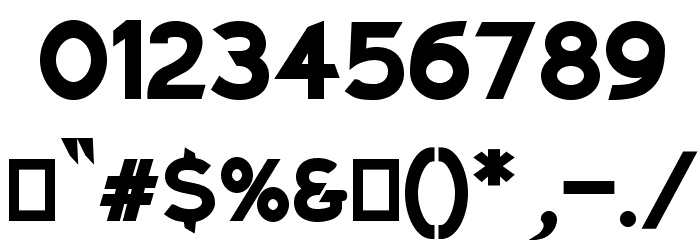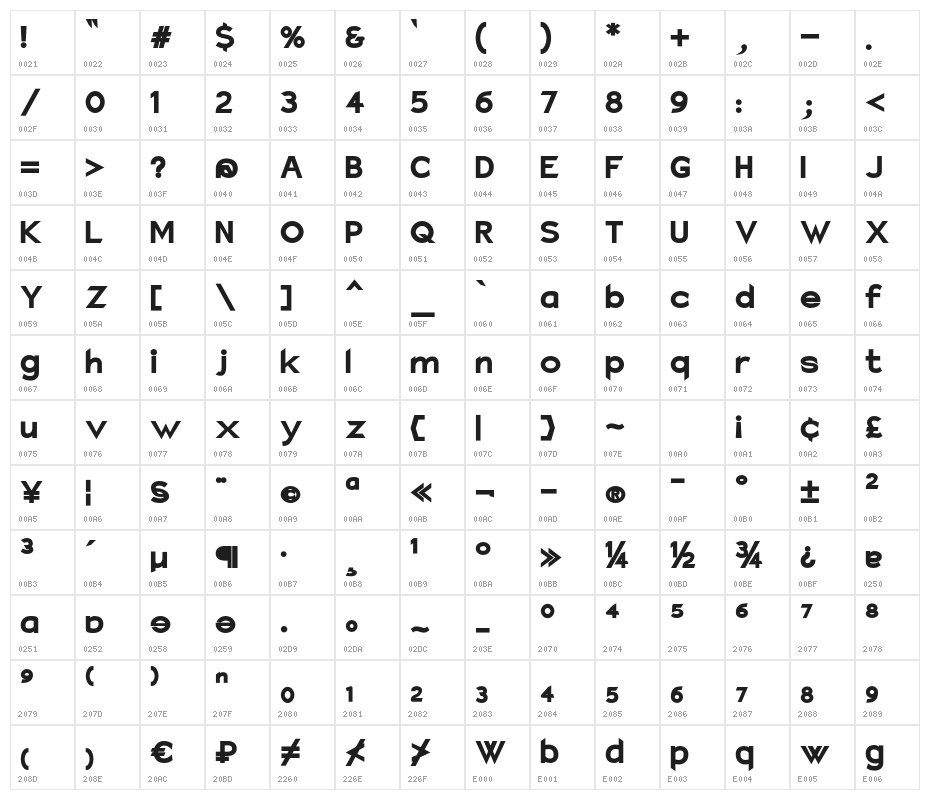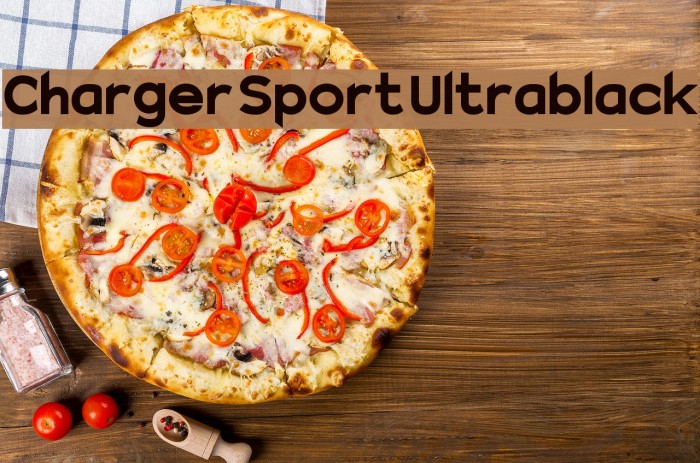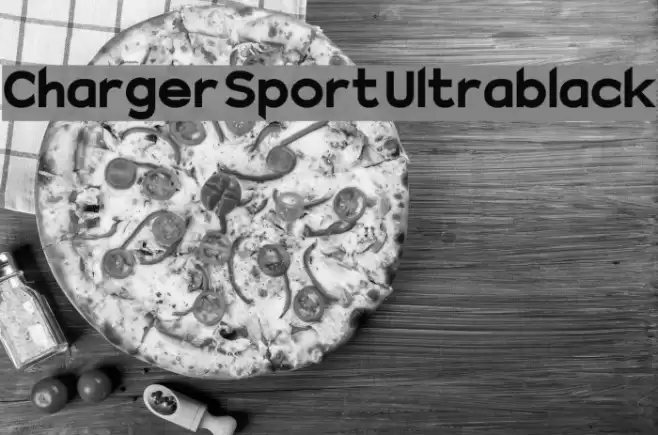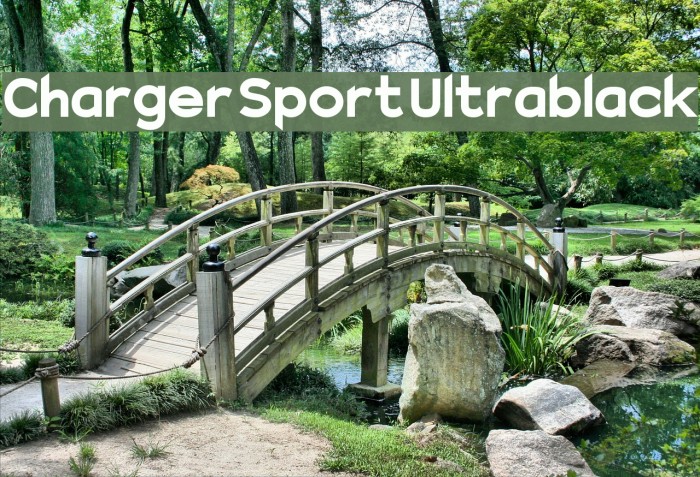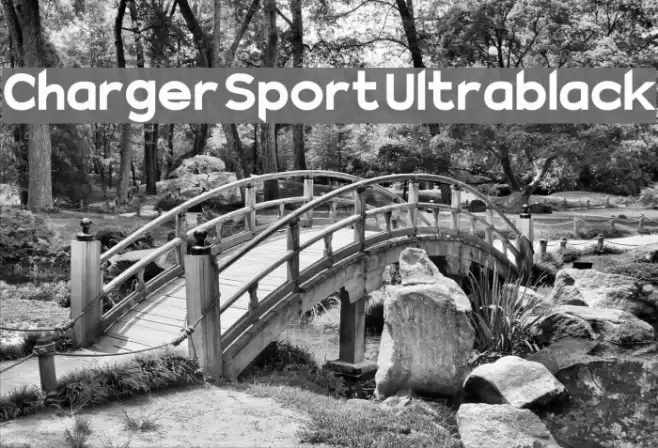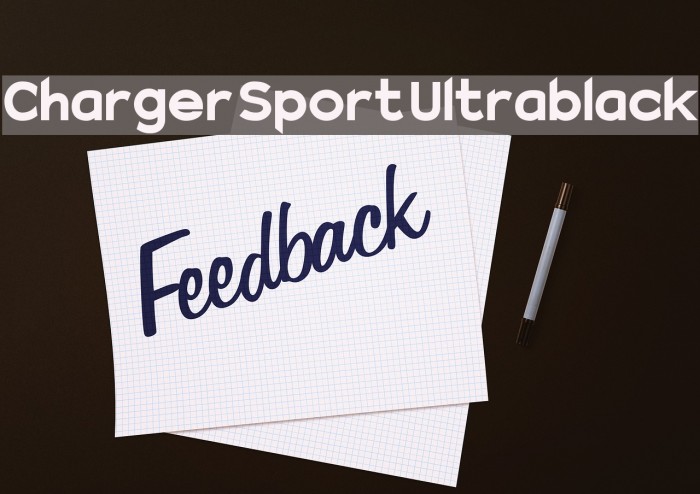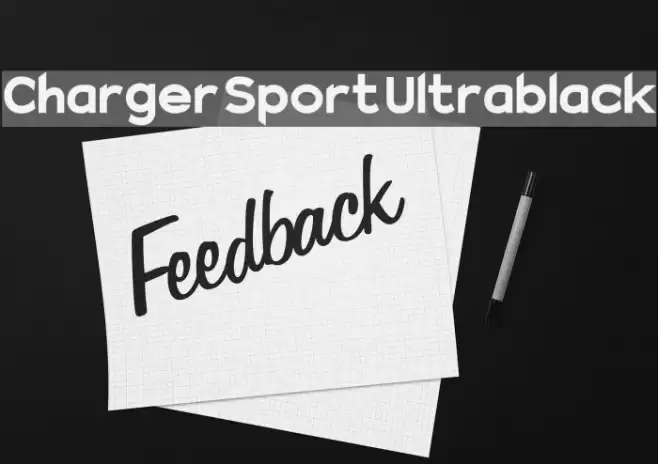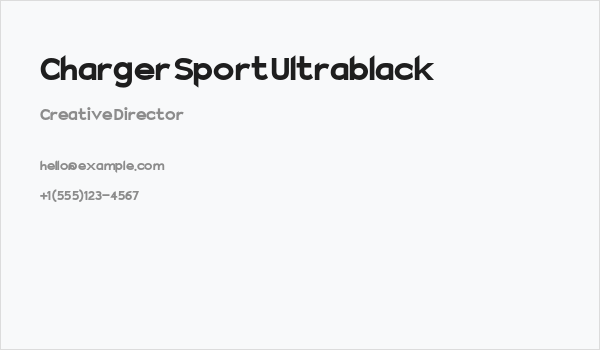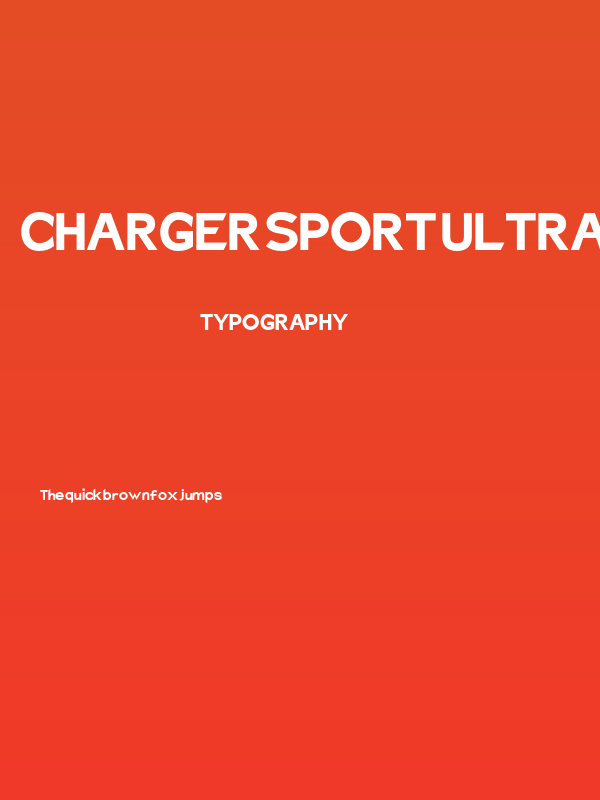
Charger Sport Ultrablack Font
Charger Sport Ultrablack Description
This font features a bold and assertive design, characterized by thick, uniform strokes that convey strength and modernity. The uppercase letters are robust and commanding, while the lowercase letters maintain a consistent weight, offering a harmonious balance. The numerals are clear and impactful, making them suitable for attention-grabbing displays. Special characters are designed with the same boldness, ensuring they stand out. The overall style is contemporary, making it ideal for projects that require a strong visual presence.
Proposed ProjectsIdeal for sports branding, headlines, posters, and any project needing a bold statement.